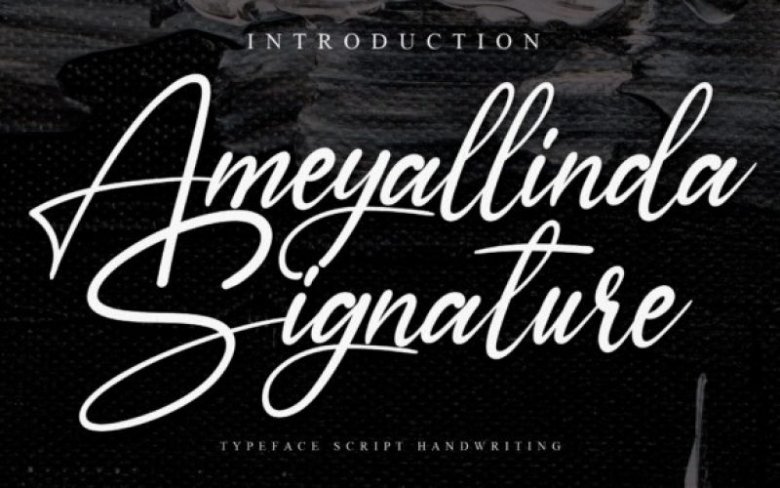
Ameyallinda Signature Script Font
Ameyallinda Signature is a modern handwritten font. Fall in love with its incredibly versatile style and use it to create gorgeous wedding invitations, beautiful stationary art, eye-catching social media posts, and much more!